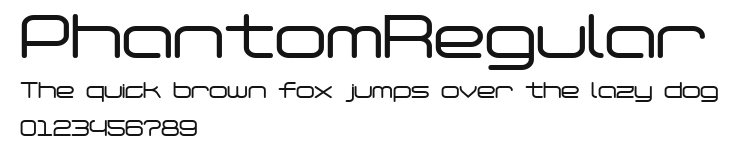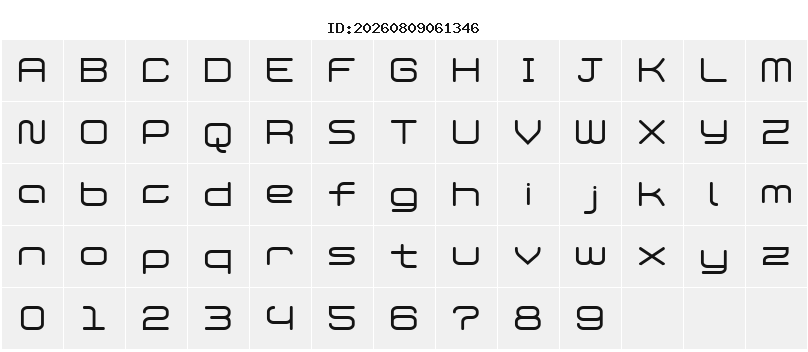
• Font Name: PhantomRegular
• Full Font Name: PhantomRegular
About PhantomRegular.ttf
PhantomRegular.ttf is a modern, elegant sans-serif font designed for ultimate readability and visual harmony. Perfect for branding, headlines, web design, and print materials.